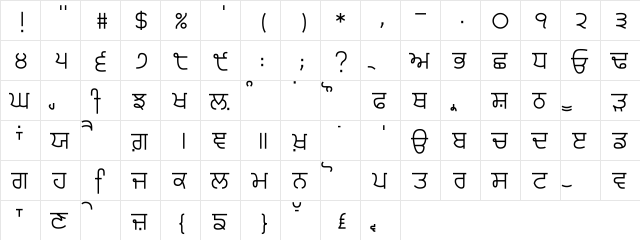
Gurvetica a4 Book Book
Design Context for Gurvetica a4 Book Typeface
Gurvetica a4 Book takes a measured approach to typography — its balanced proportions and neutral character make it a reliable workhorse for both digital and print work.